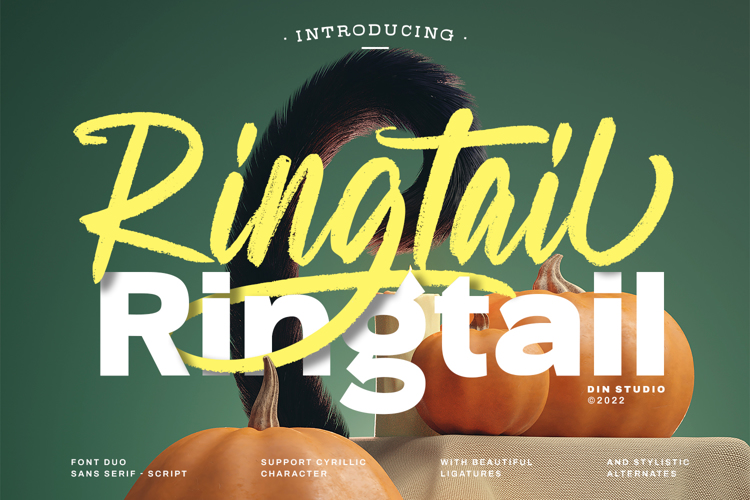
Ringtail Font
Sans Style
Script Style
Product Description :
Ringtail is a font containing two font types to use together or separately: sans serif and script fonts. Sans serif font has firm, modern, simple looking lines without curvy edges. Meanwhile, the script font has curvy lines in water paint or ink textures. The textures are extra lines added to each letter and to the background letter patterns. A textured script font looks more artistic and more detailed than the other ordinary script fonts to show elegant, romantic impressions in your designs. Additionally, script font can be applied for adding extra visual contrasts to designs with sans serif font.
Features include:
• Ligatures
• Stylistic Sets
• Multilingual Supports
• Numerals and Punctuations